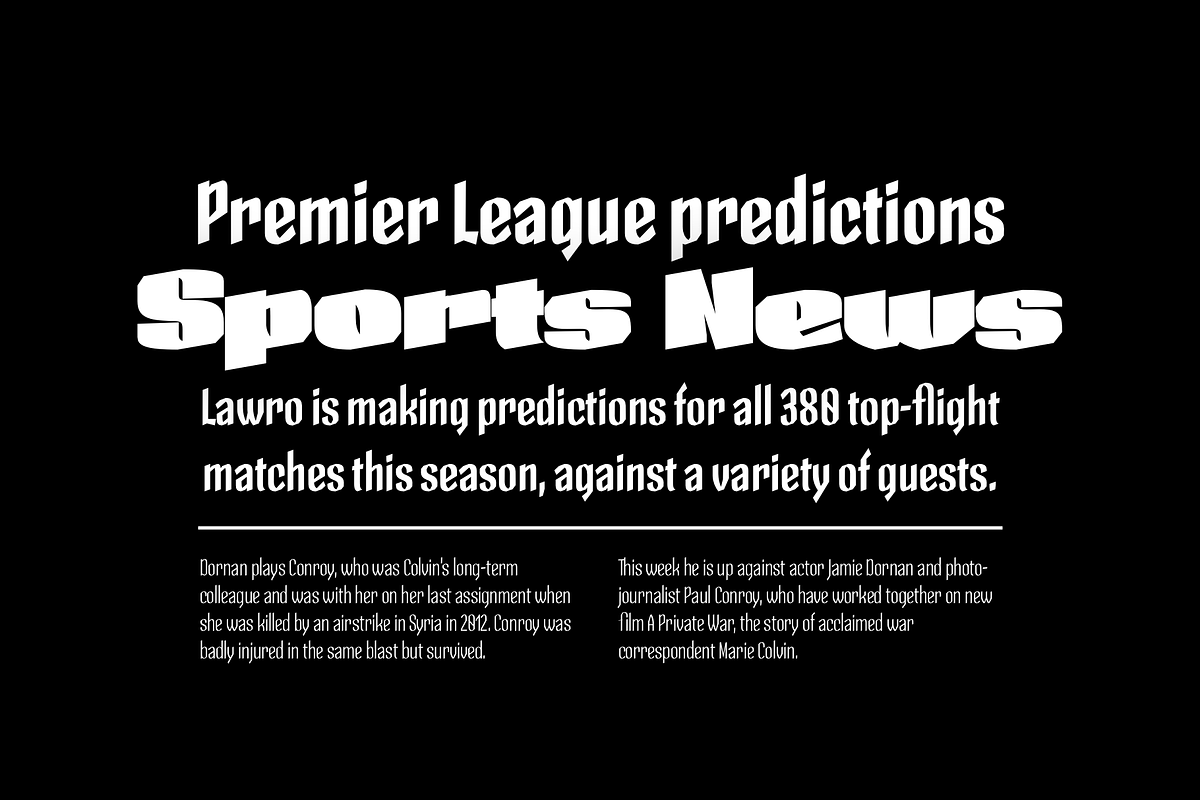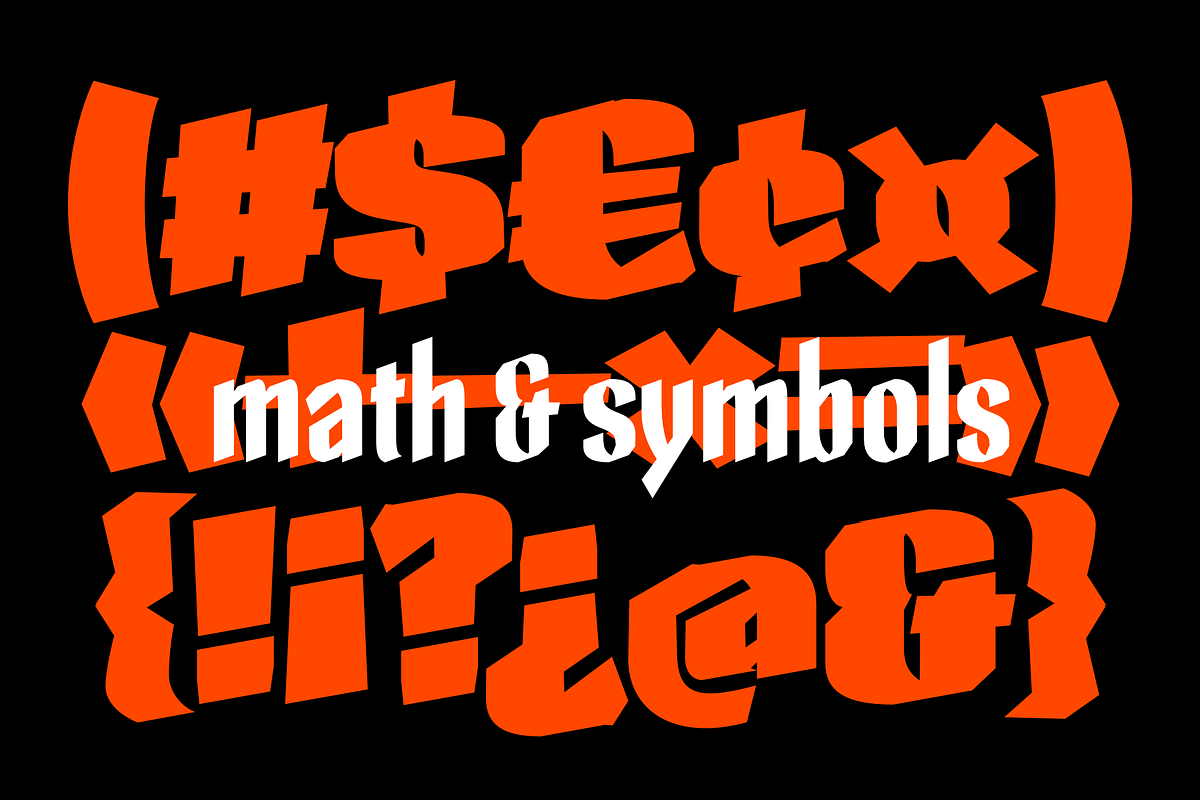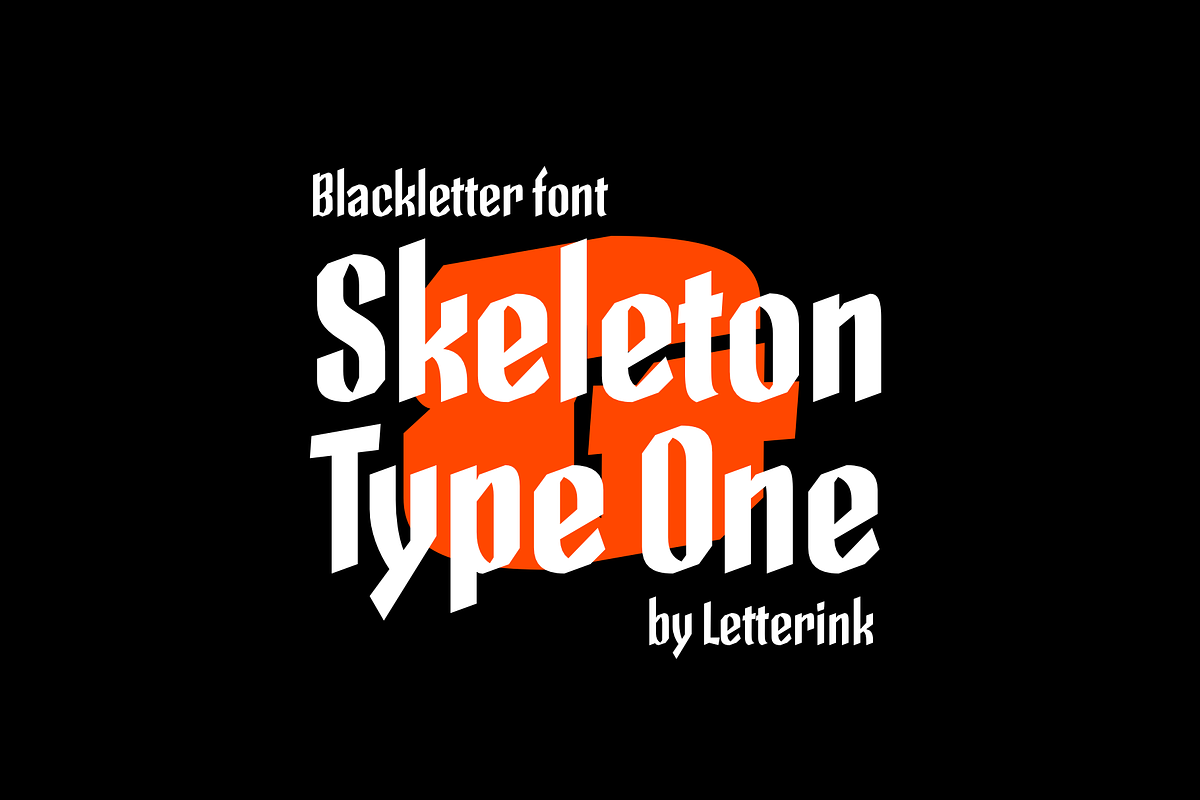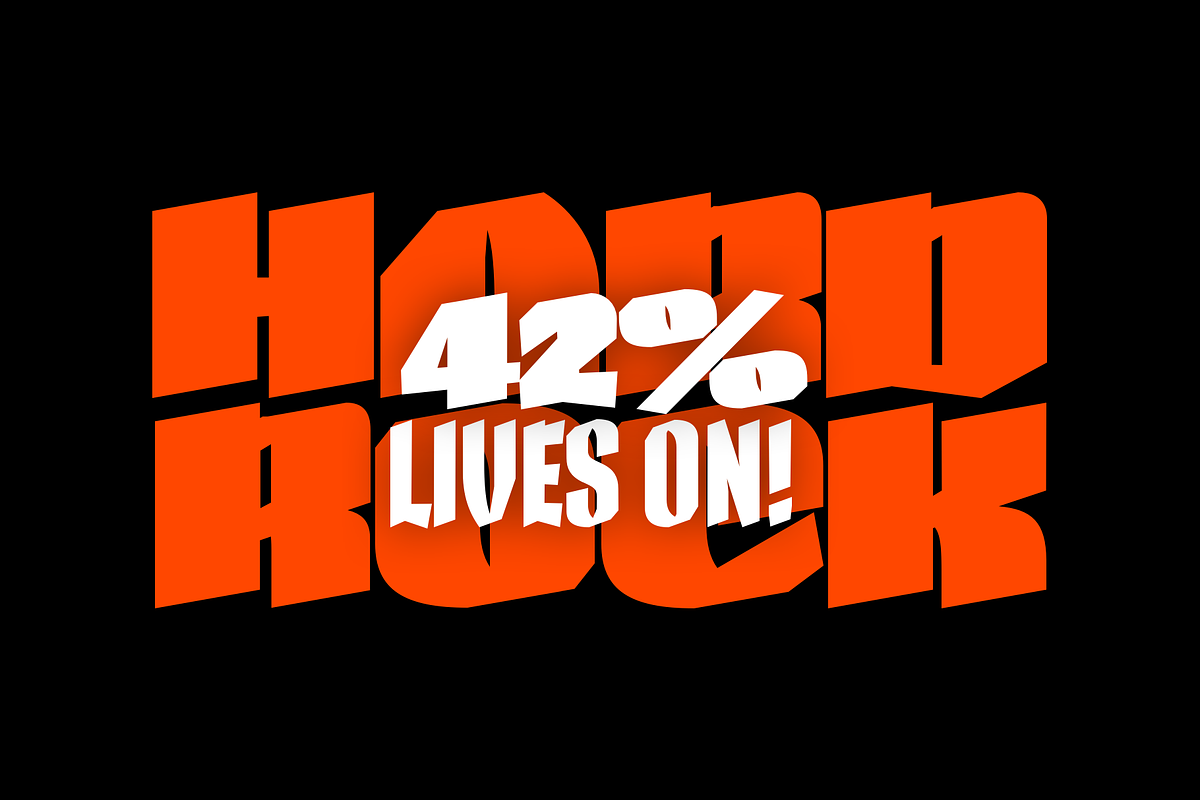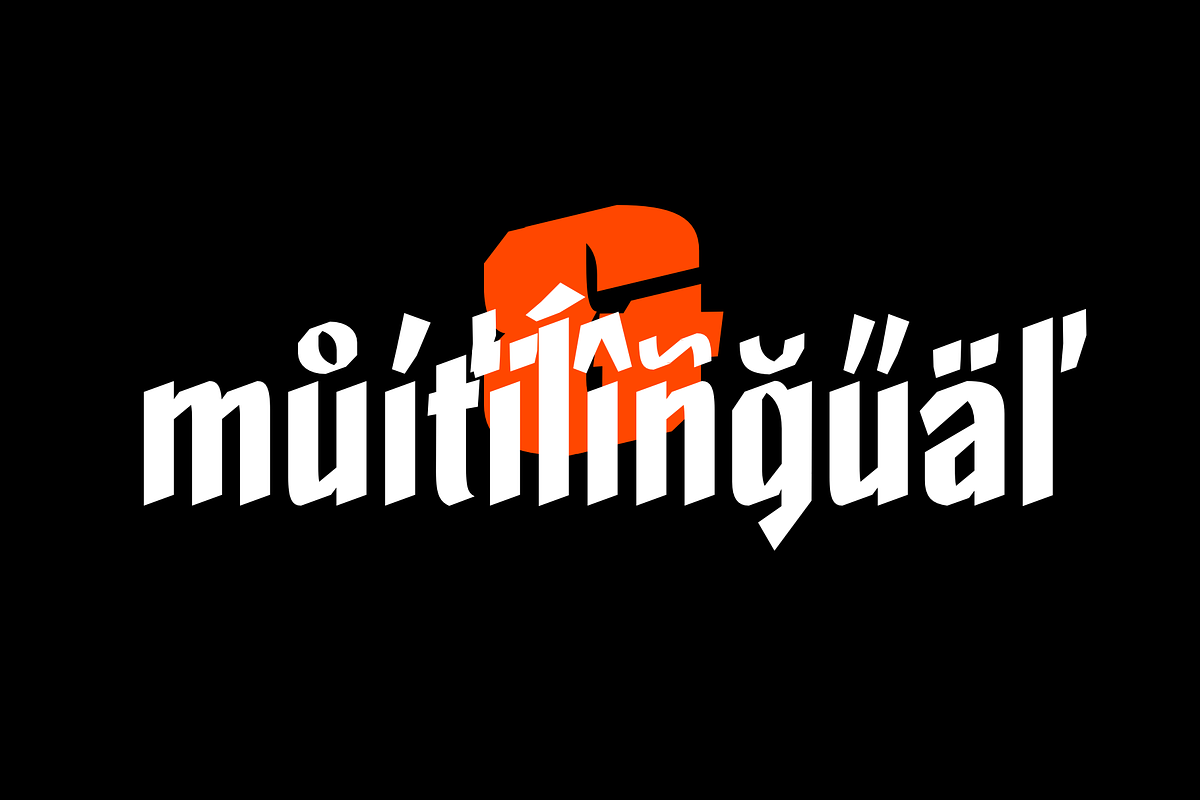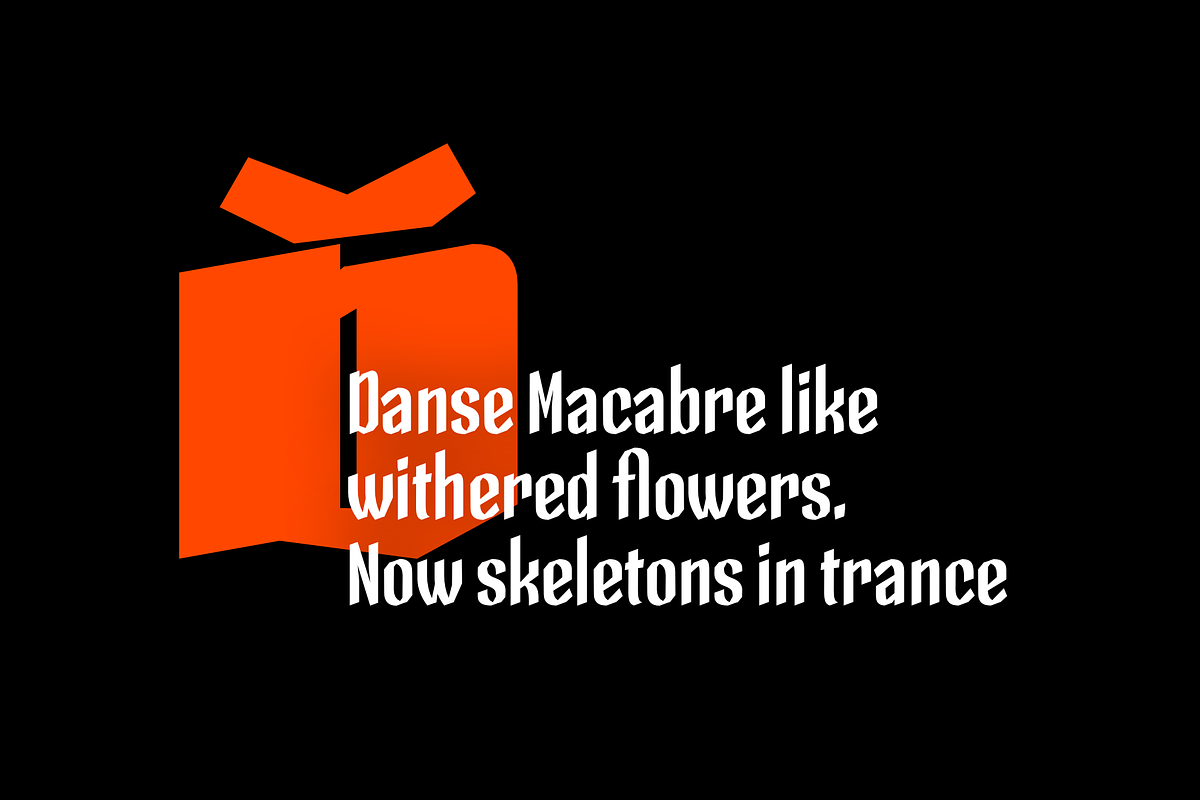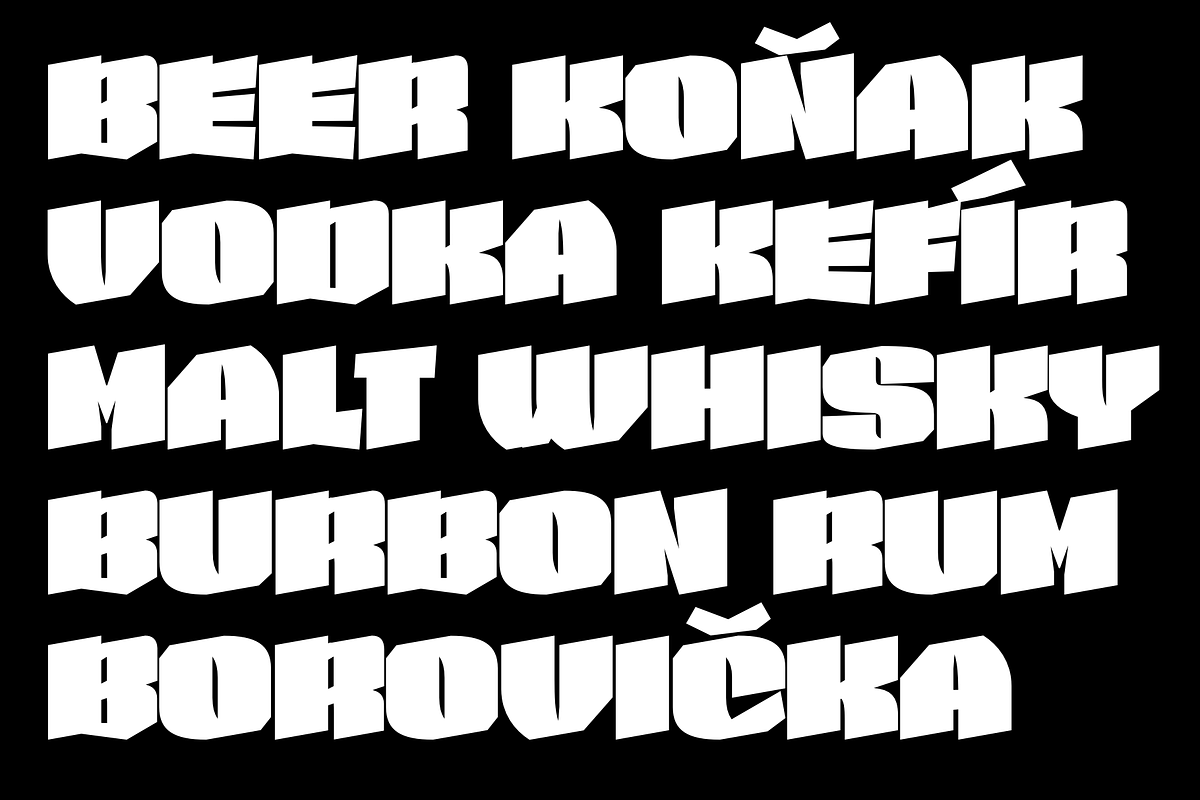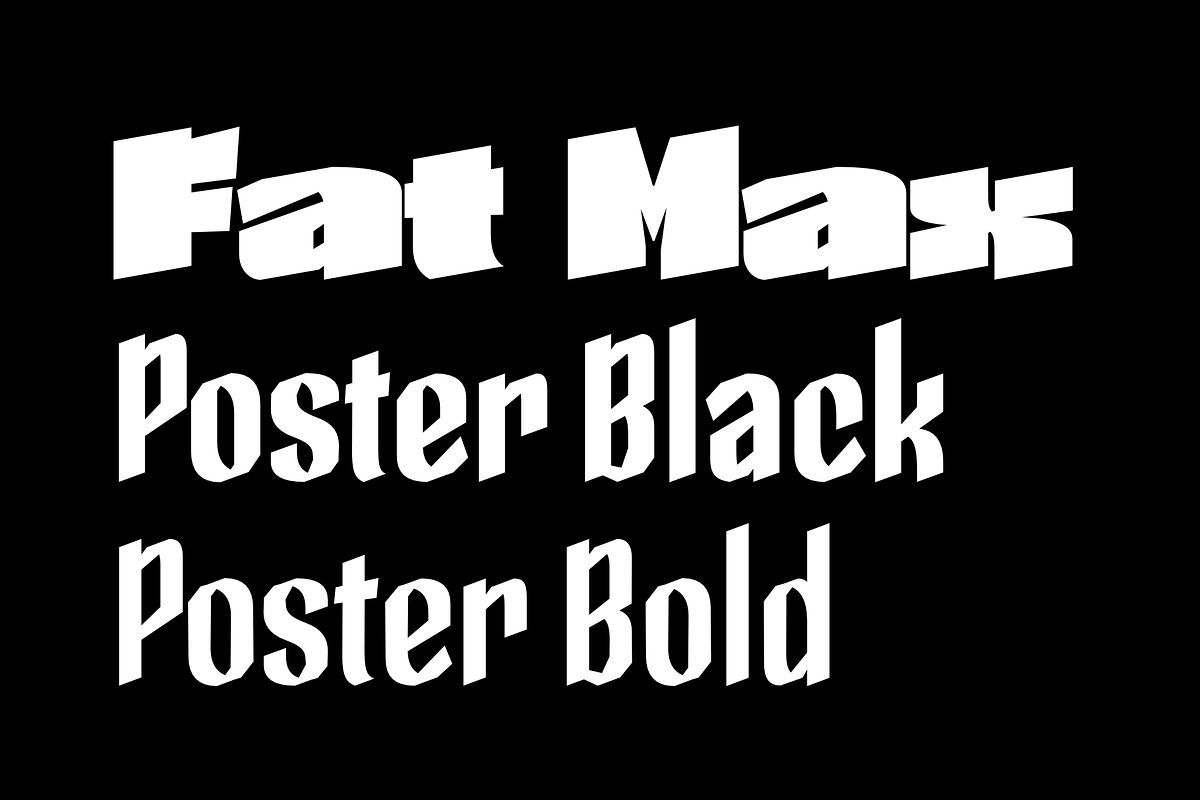
Skeleton Type One • 3 styles
Skeleton type one is a fractured grotesque experiment.
Good choice when bored with fraktur – try this one.
Font made with Letterink:
- Skeleton Type One Poster Bold
- Skeleton Type One Poster Black
- Skeleton Type One Initial Max